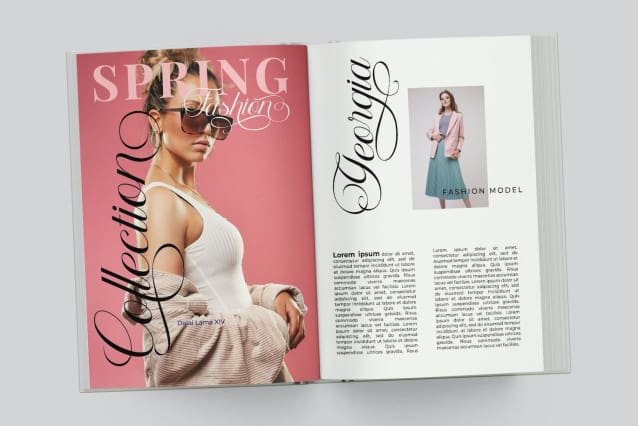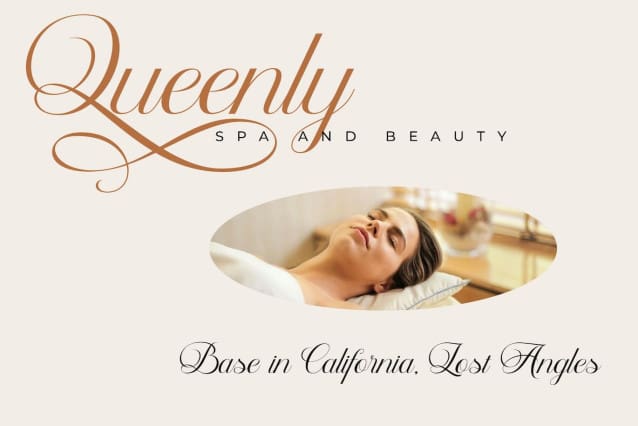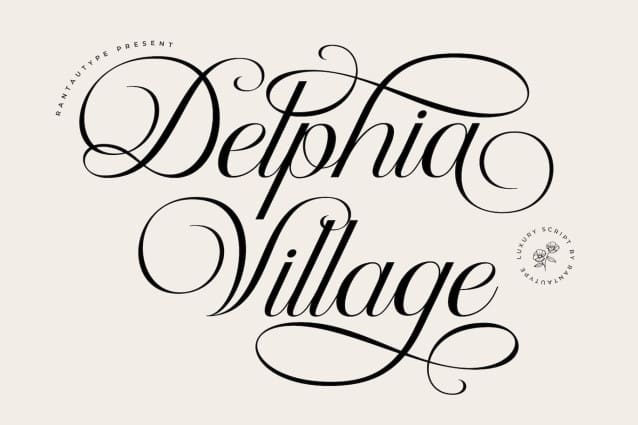
Delphia Village Font
Delphia Village Font, is beautiful script font which can be interpreted professional with stylish and soft curve. We keep this font looks feminine, girly, modern, minimalist, elegant, readable, stylish, catchy and easy to use. Benitta come with ligature, beautiful alternate and multilingual support.
Benitta is a beautiful choice for any creative endeavor, chic, lifestyle design such as logos, title, watermark on photography, cover, branding, display and magazine, wedding event, quotes, album cover, business card, corporate, business project and many other design project. Benitta here to make your work to high level!!!